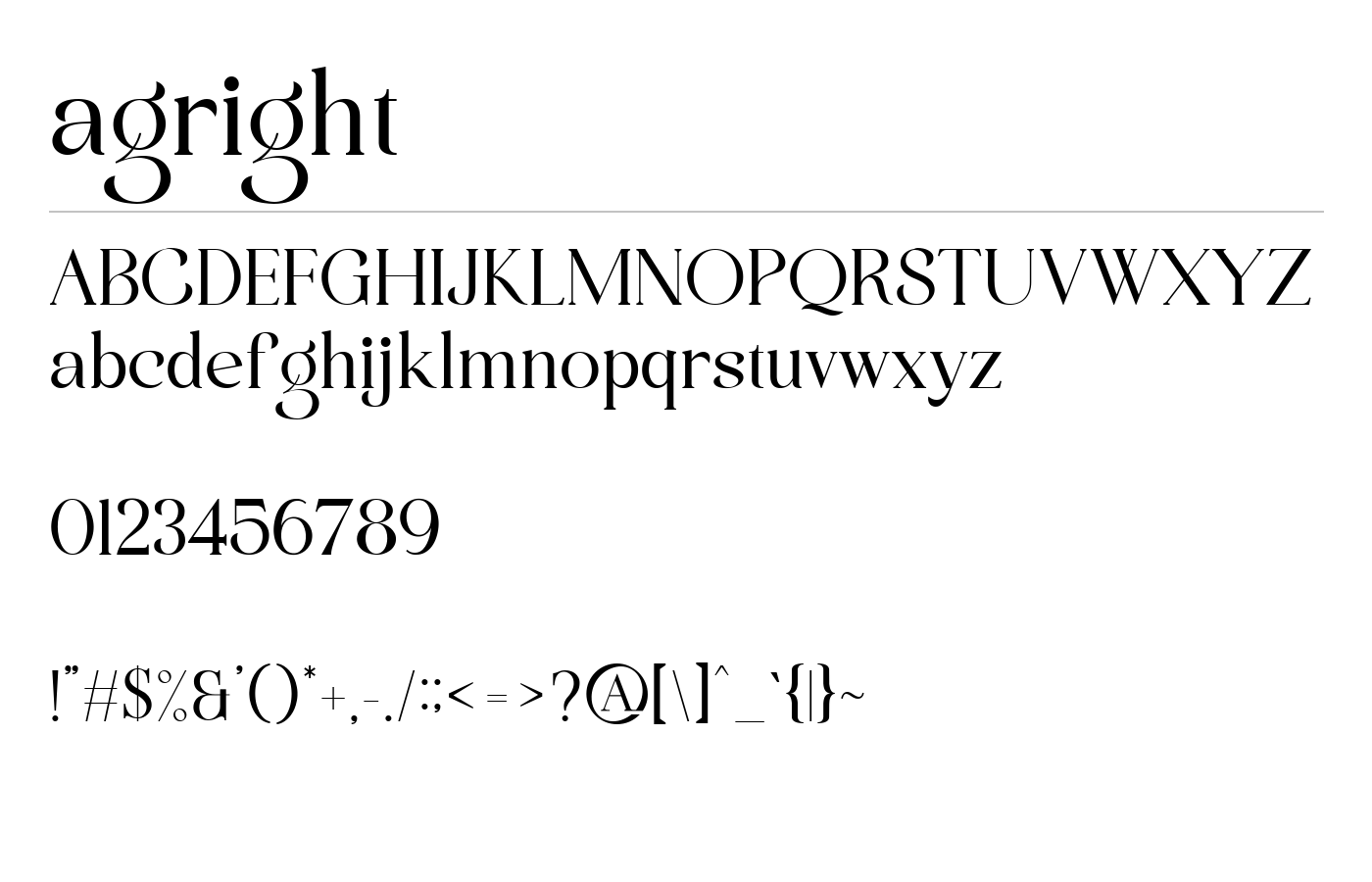
Agright is a refined serif typeface with a modern Didone influence, featuring high contrast between thick and thin strokes and elegant, bracketed serifs. Its distinctive letterforms, including unique double-story 'g' and a stylized 'Q' tail, convey a sophisticated and luxurious personality, making it ideal for fashion branding, editorial headlines, and upscale packaging where elegance and clarity are key. This font combines classic charm with contemporary sharpness, perfect for projects that demand a serious yet stylish impression.
agright Font
About agright Font